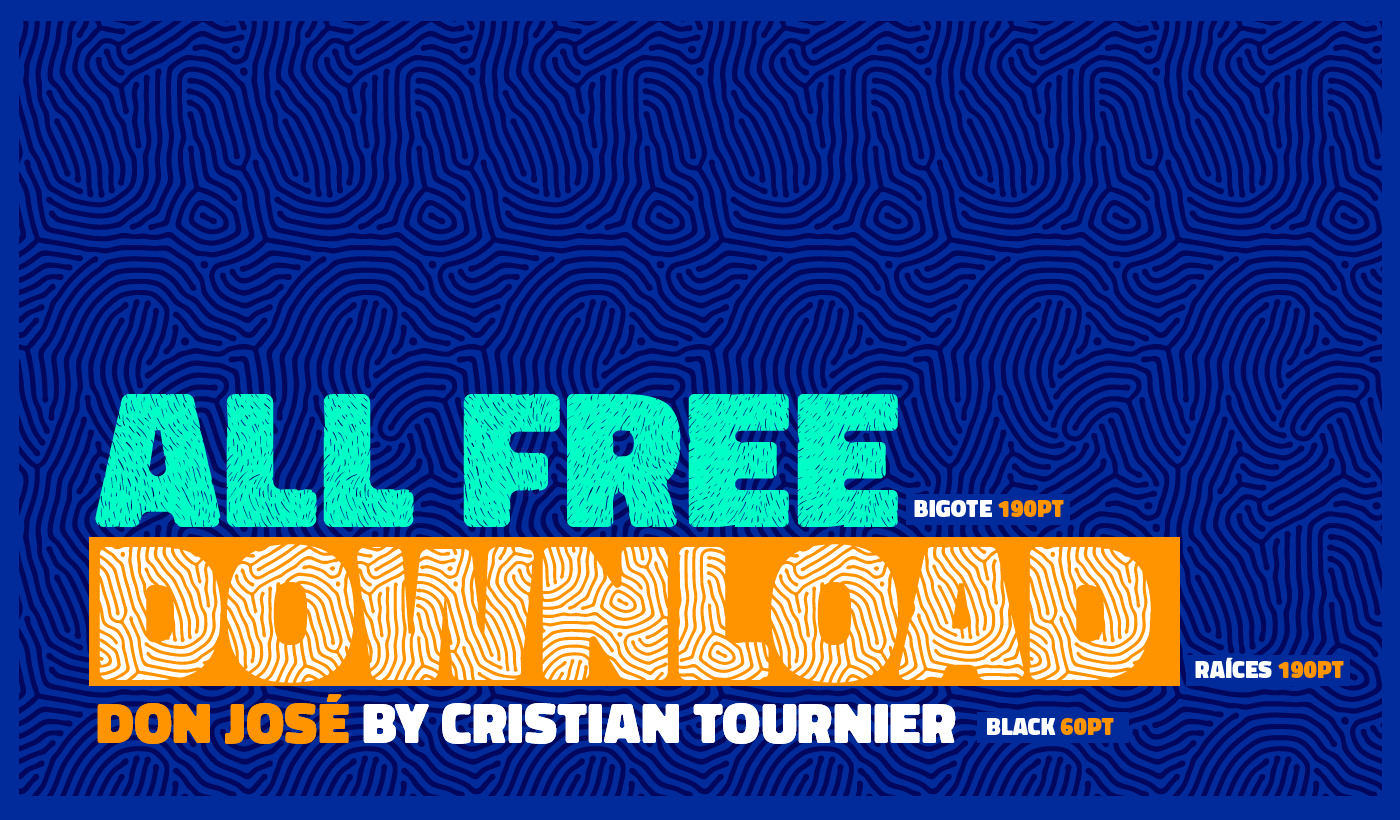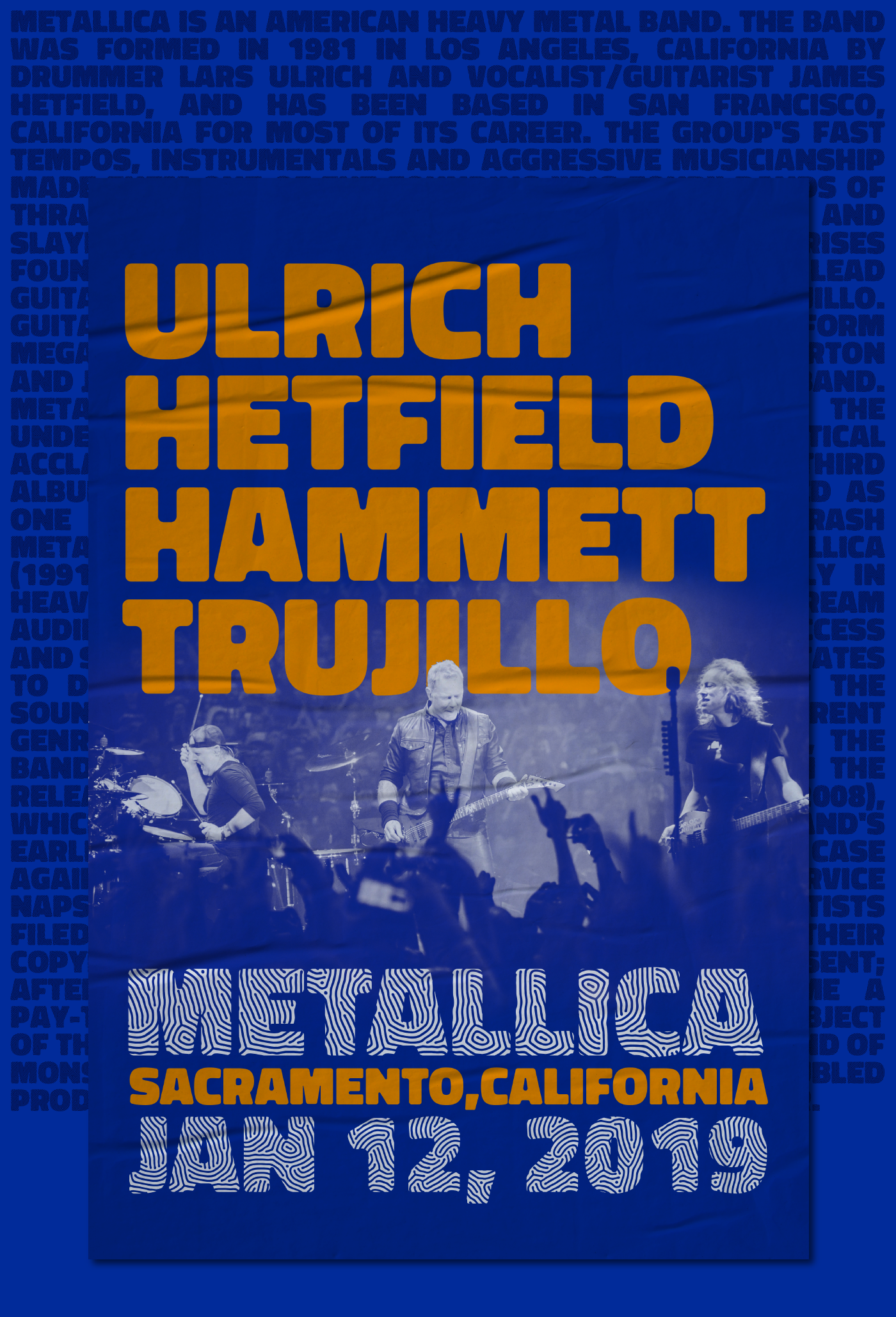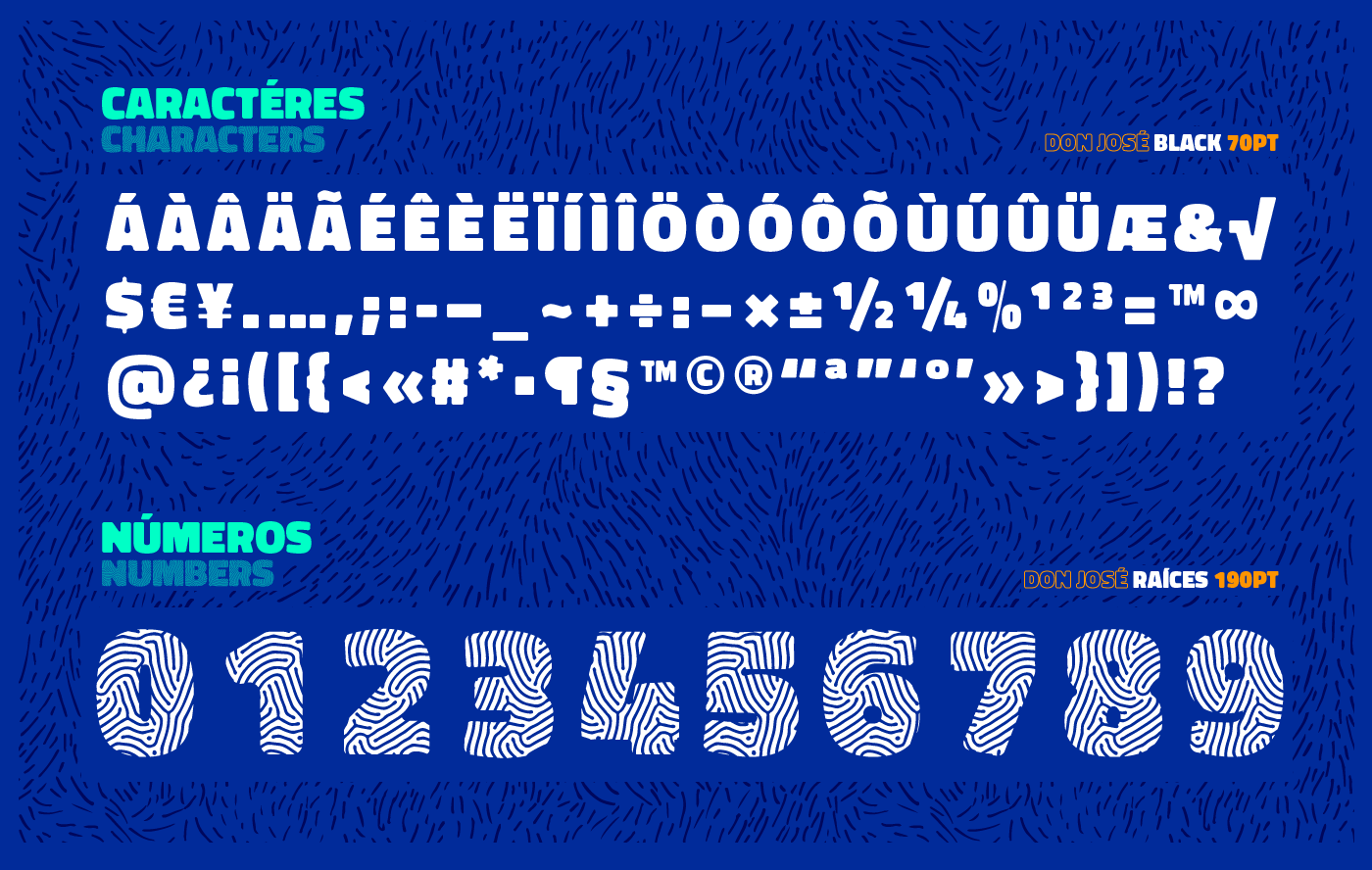
Don José Sans Serif Font
Don José is a sans-serif family with a high box, designed for holders. Designed by Cristian Tournier, it has 5 styles: Black, Roots, Mustache, Journey and Textile. The greatest virtue that this family presents is the black weight, of all its variants, which makes it interesting for headlines or highlights for magazines, books, posters, or any text that you want to highlight.